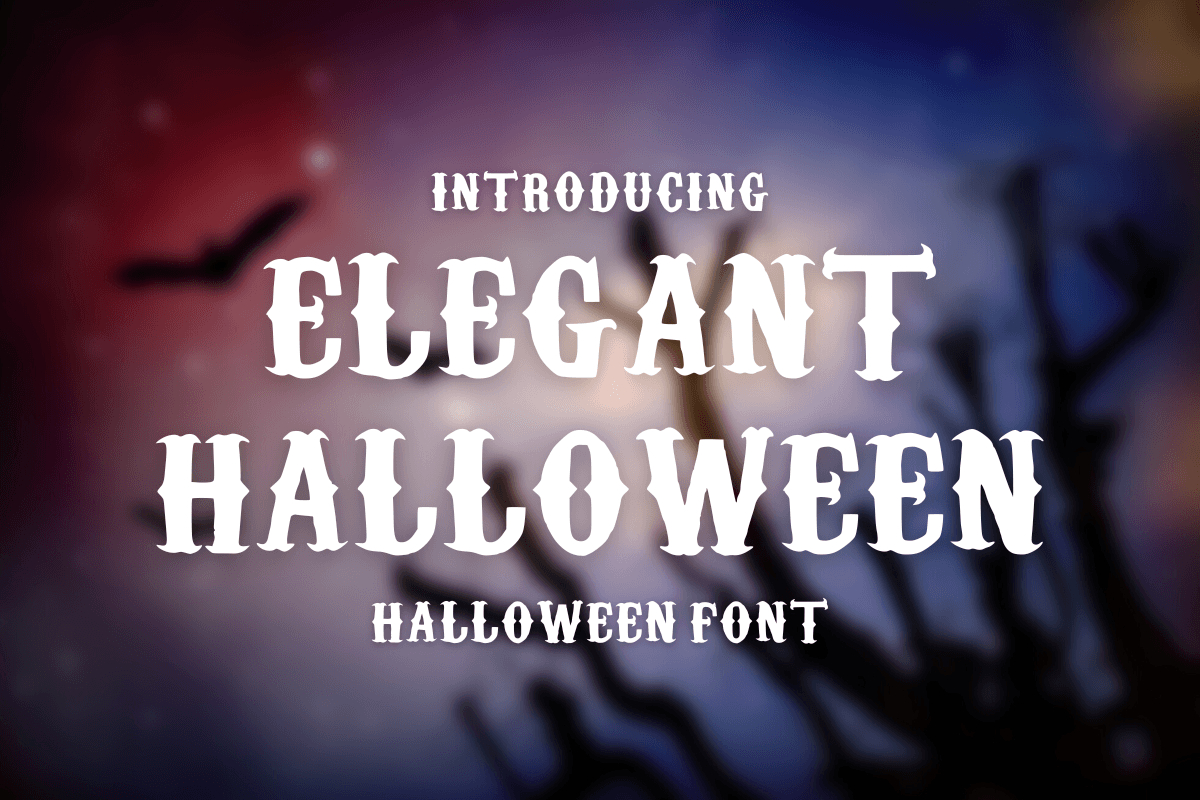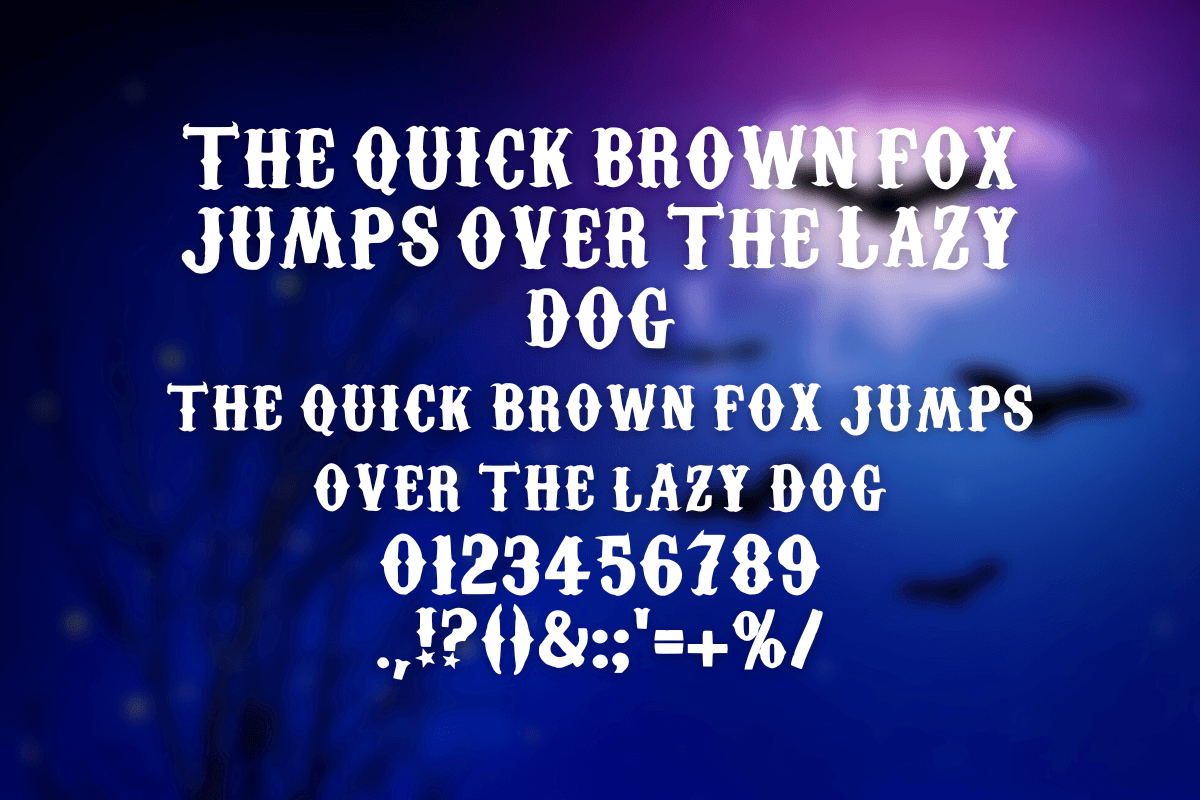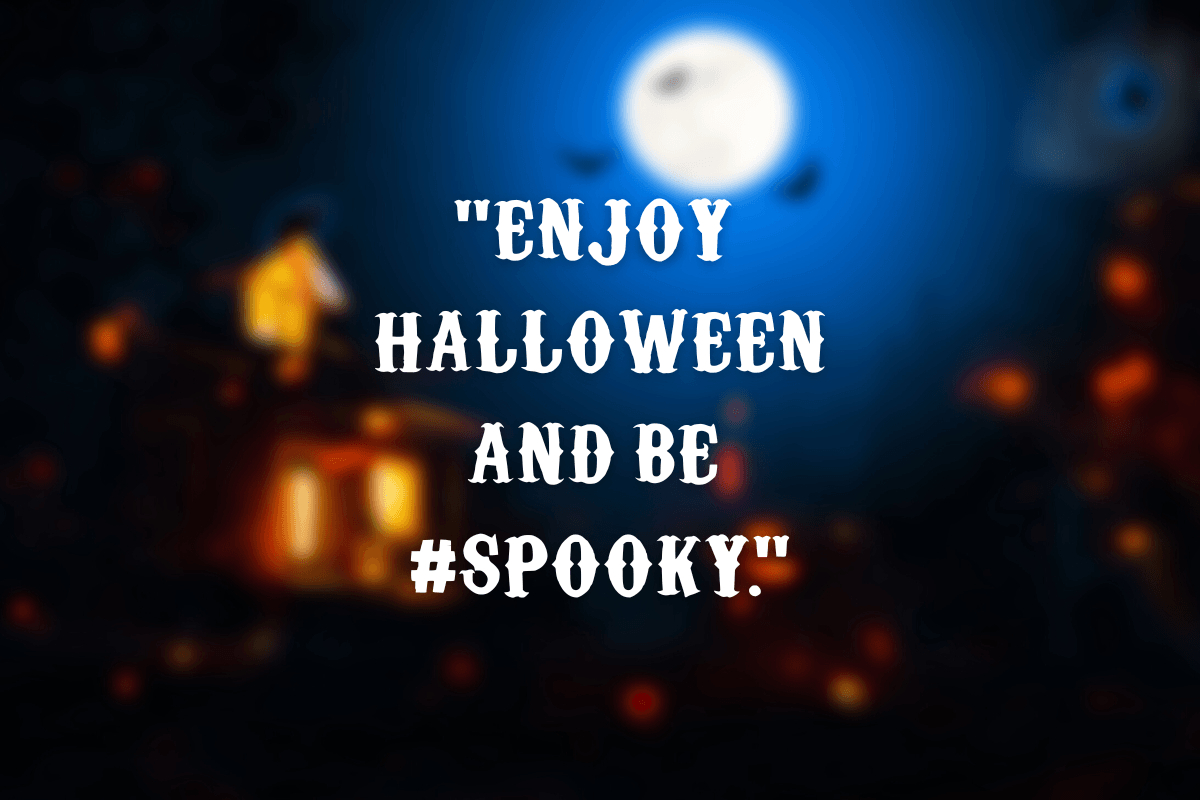
About Elegant Halloween Font
Elegant Halloween is a scary, mysterious, and elegant font. It’s perfect for Halloween and any project that needs a horror feel. Add it to your Halloween-related designs or horror creative ideas and give them the spooky and mysterious look you’re looking for!